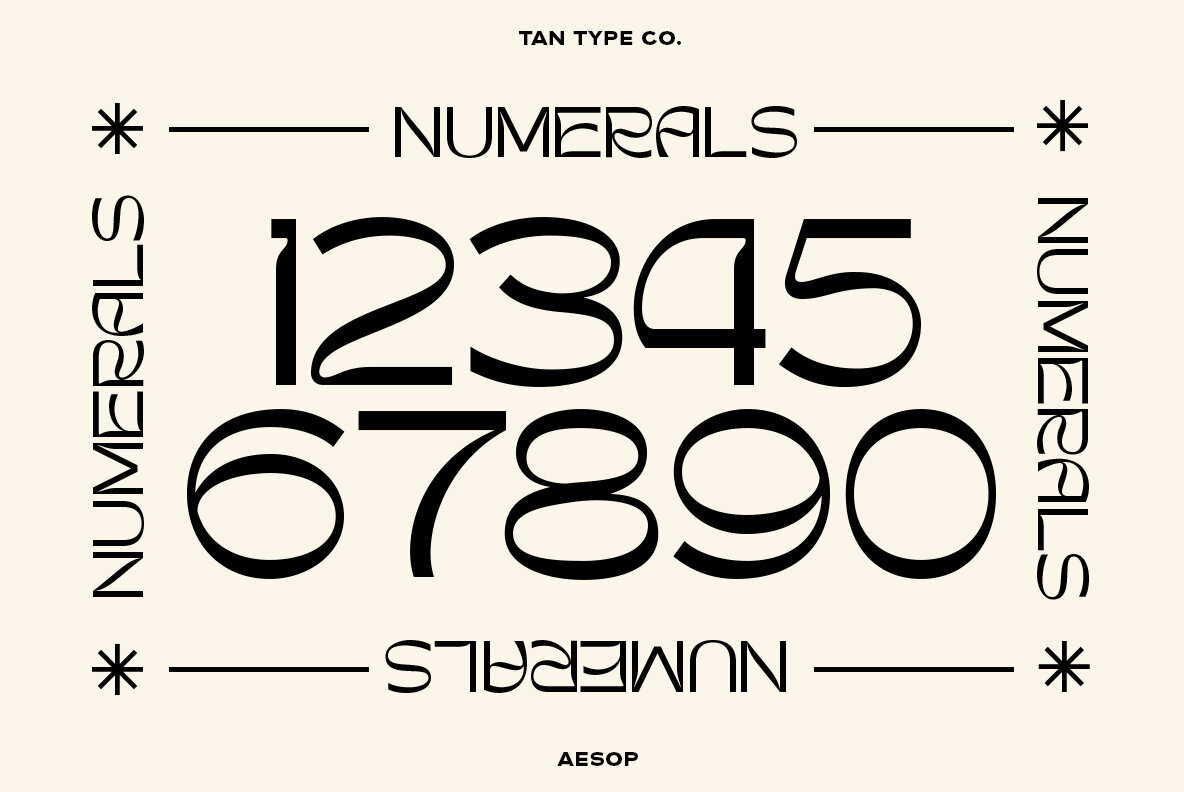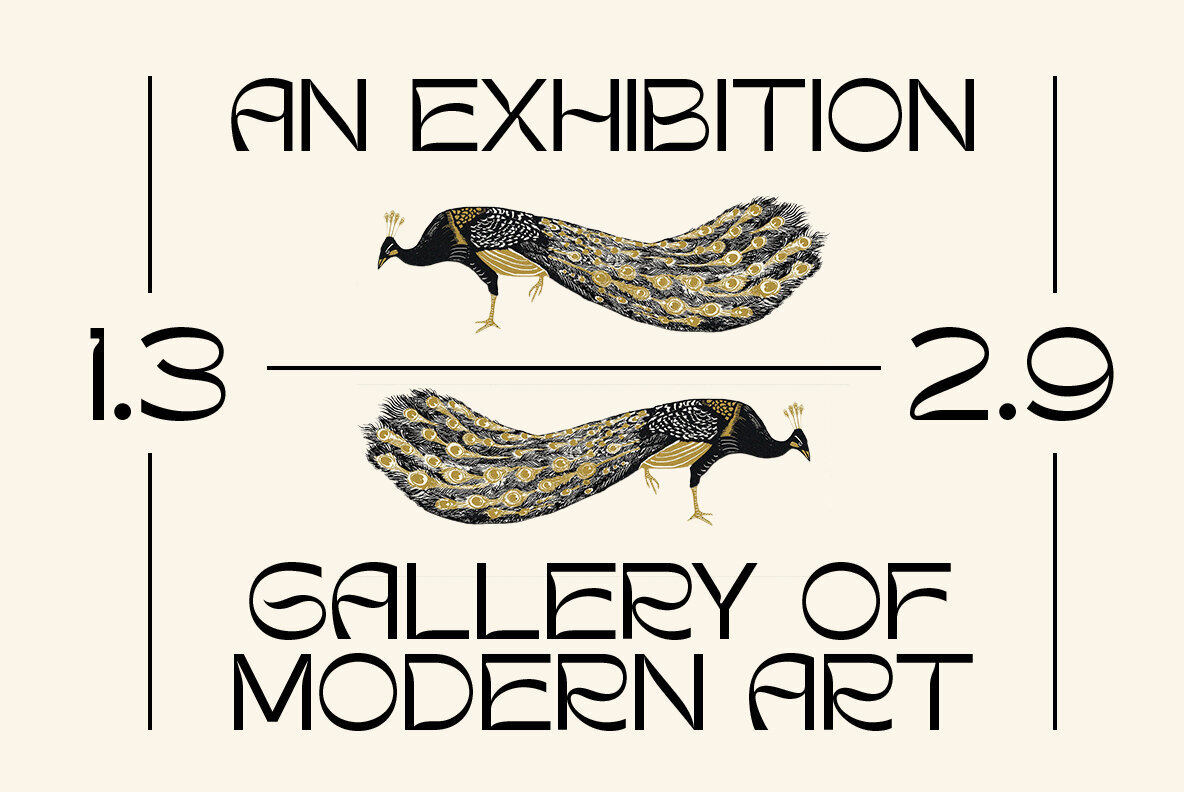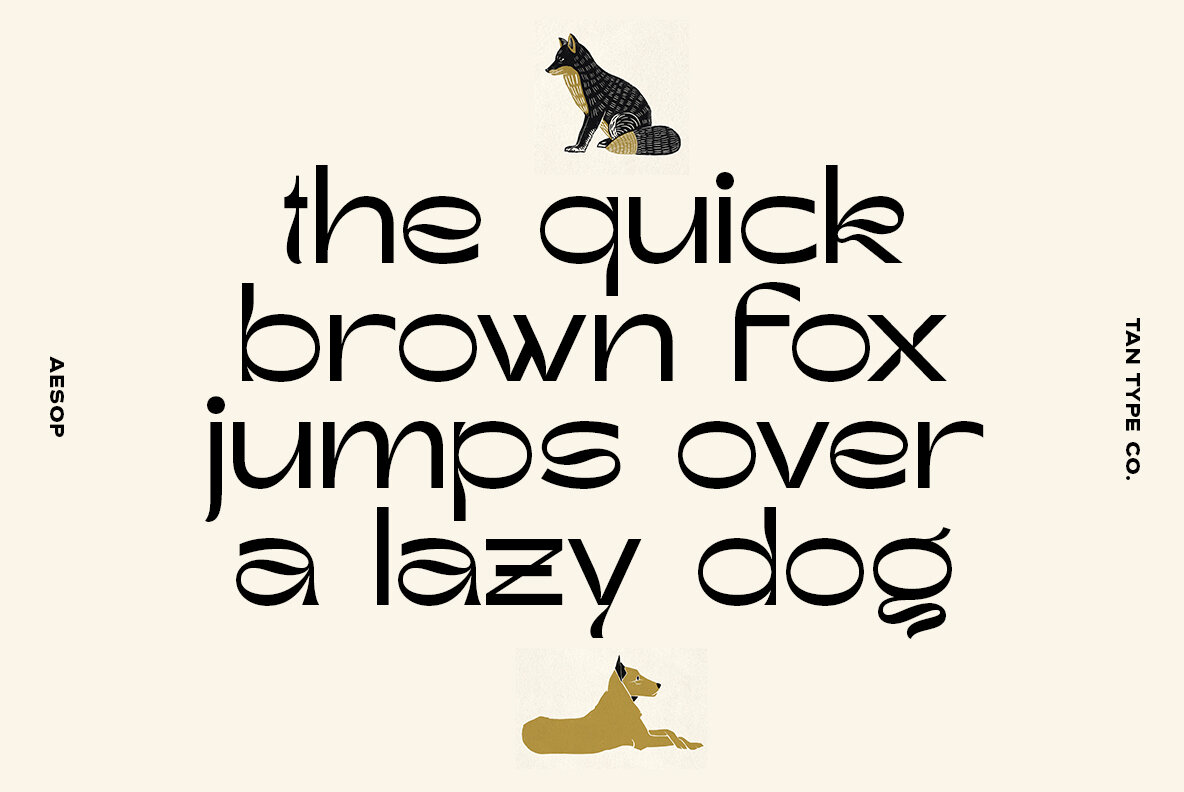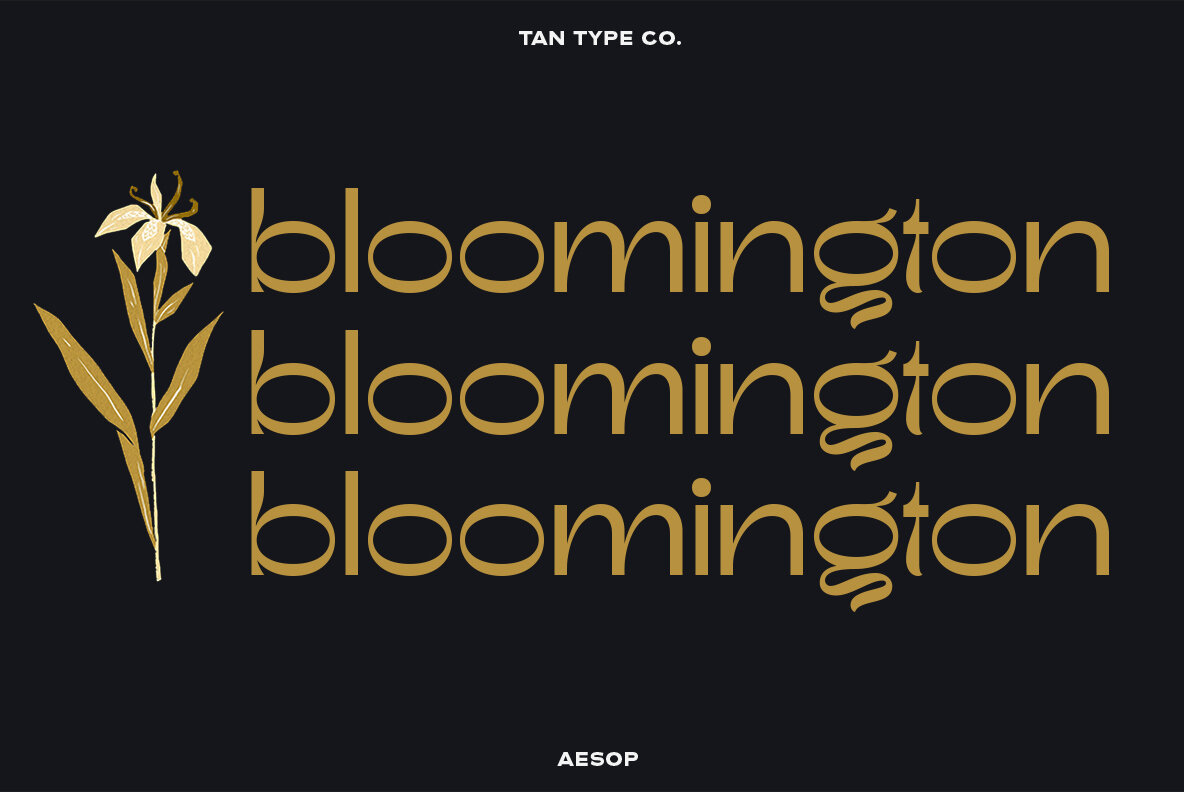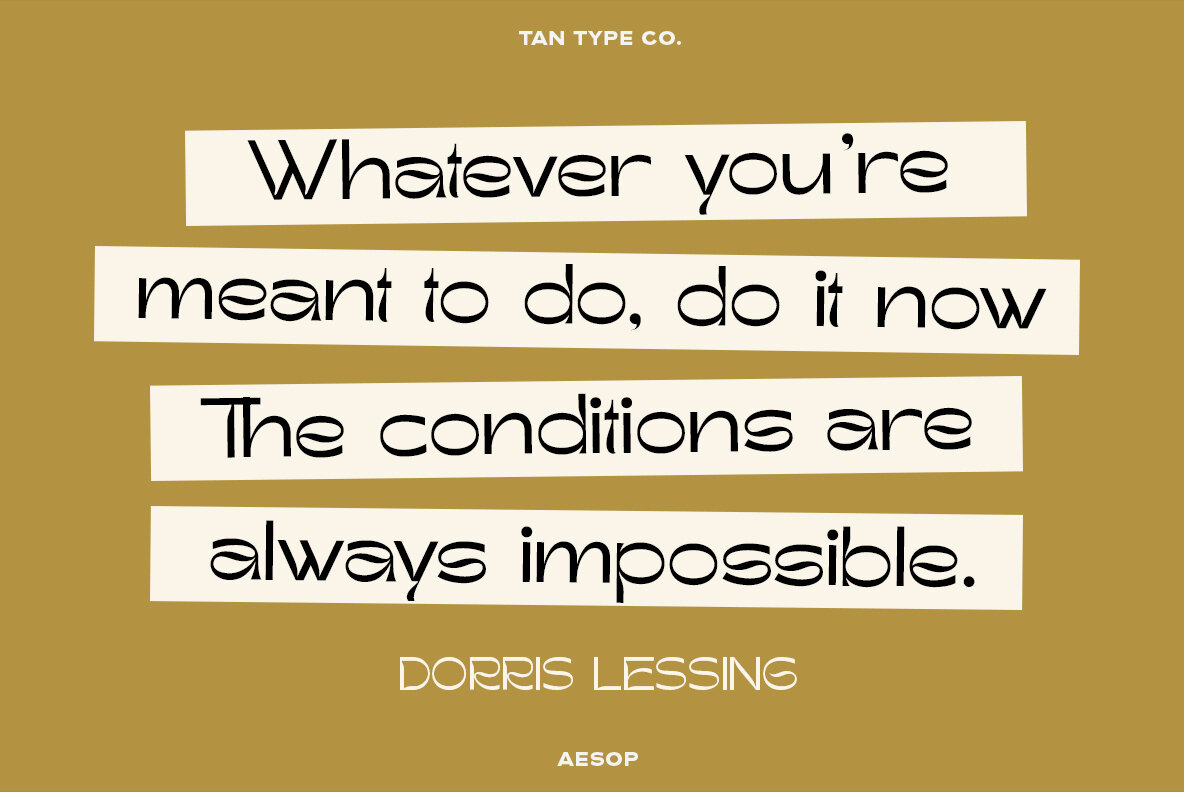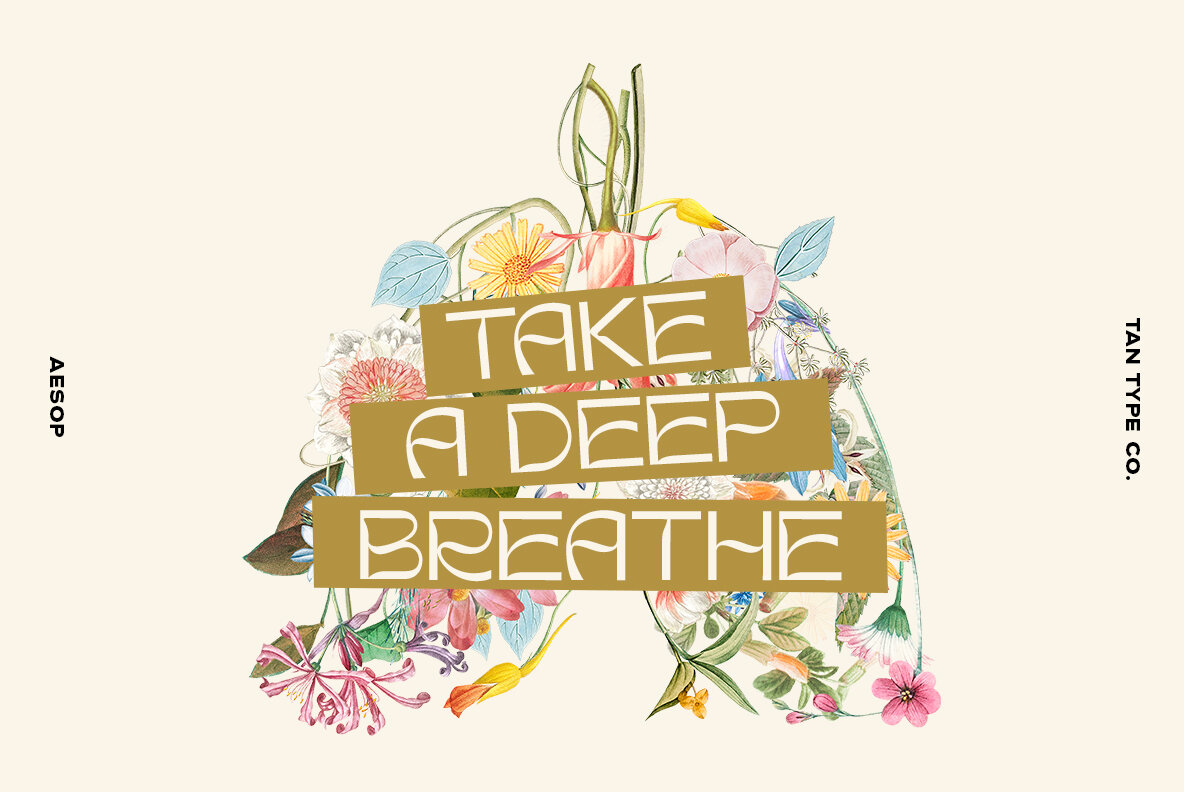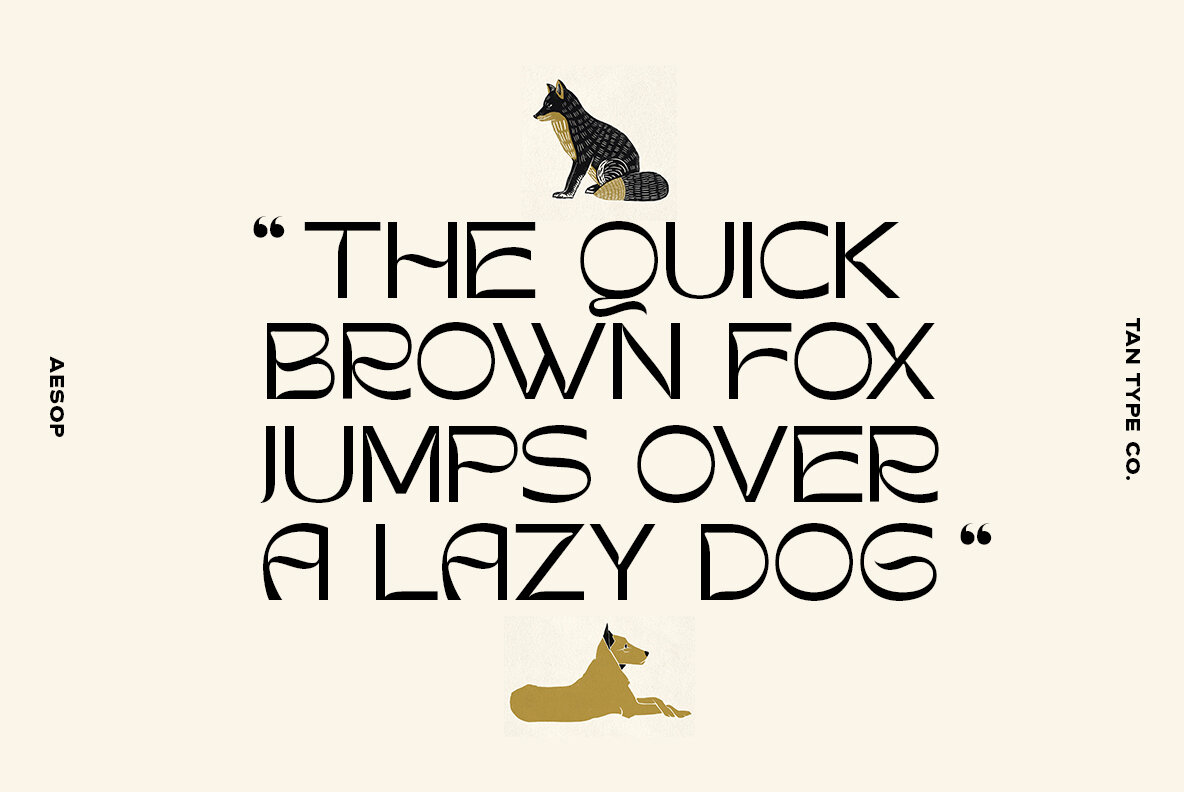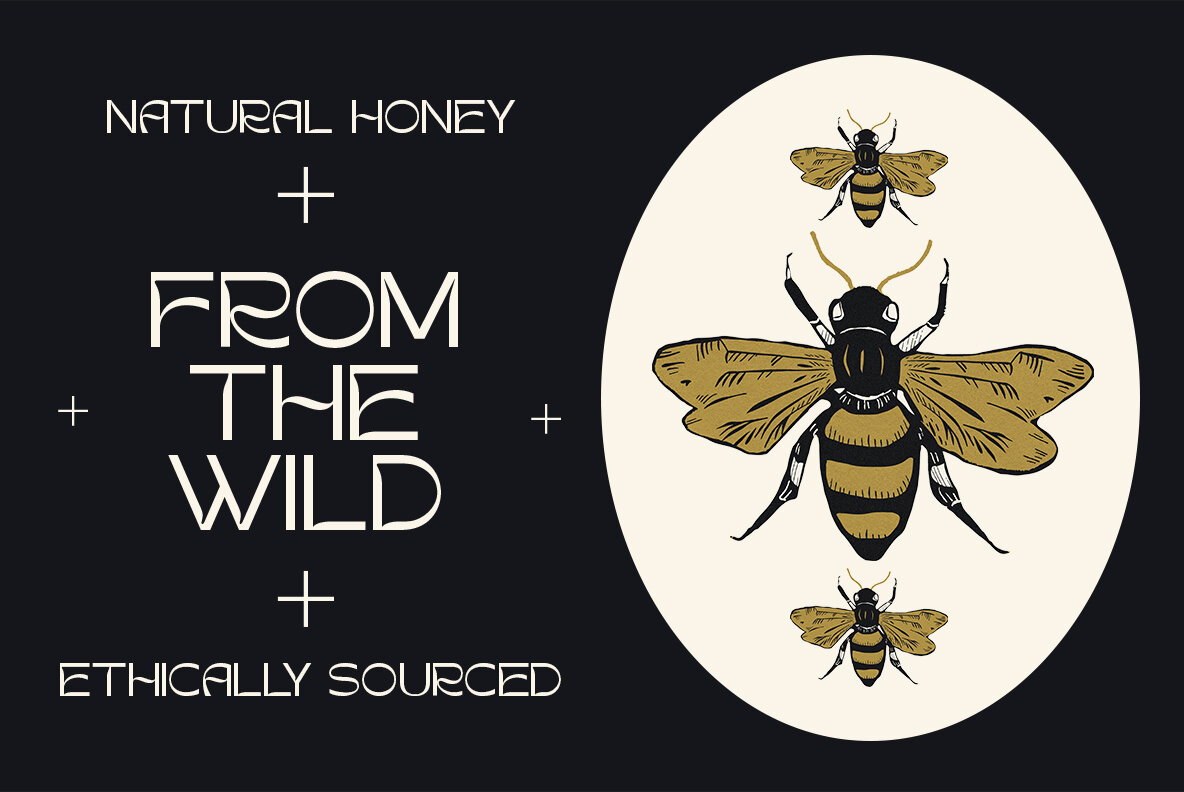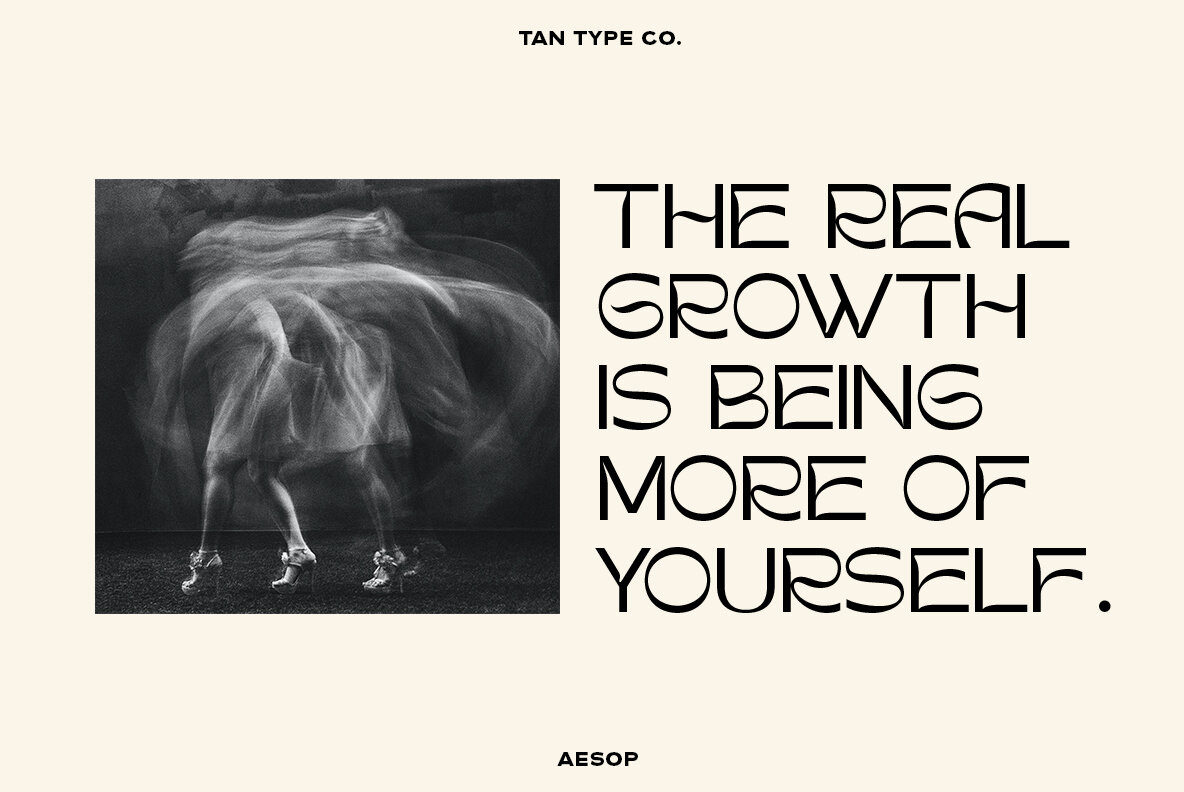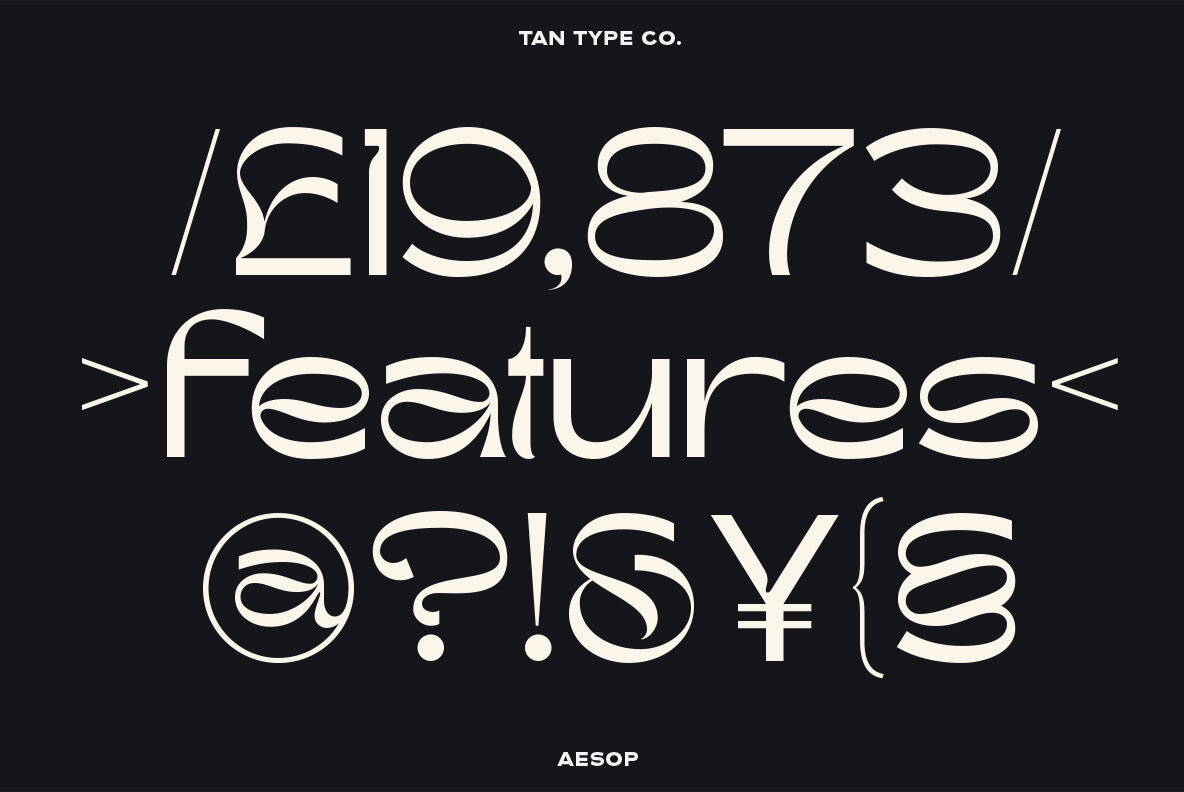
Tan Aesop Font
TAN AESOP
This decorative font features a unique and playful design, perfect for creative and modern projects. Its bold and artistic style makes it ideal for headlines, posters, and any display use where you want to draw attention. With its whimsical and unconventional appearance, this font adds a distinctive and eye-catching element to your design work.